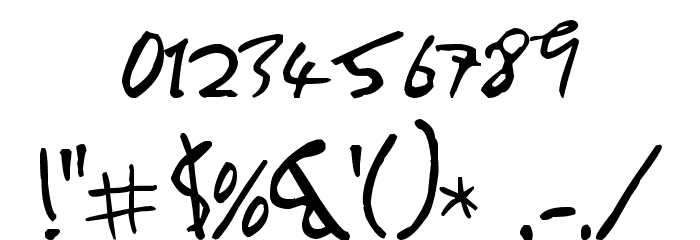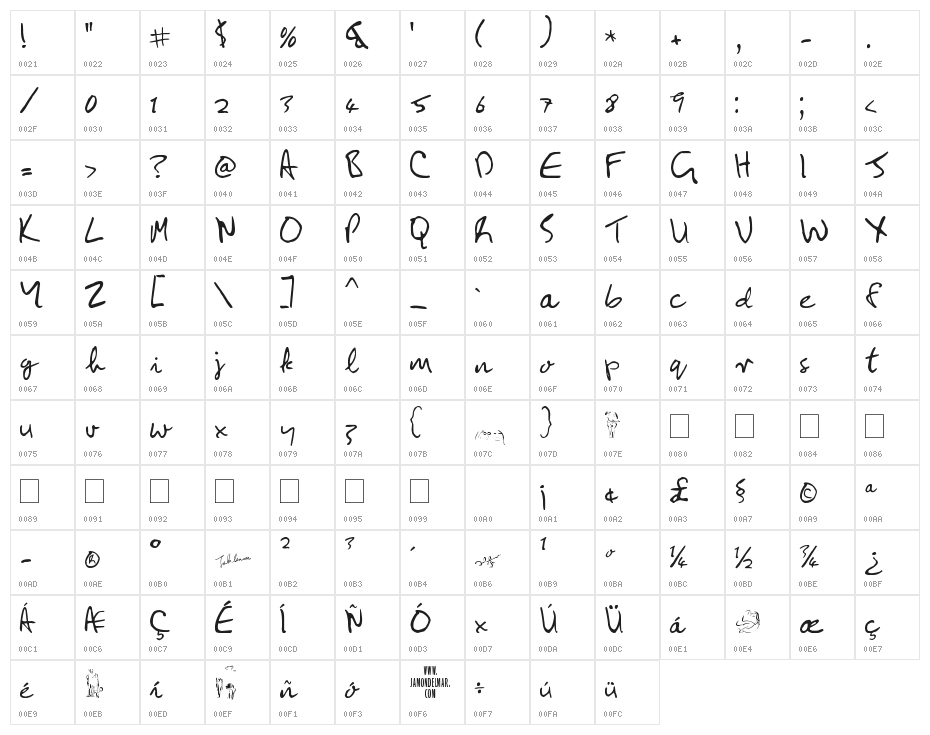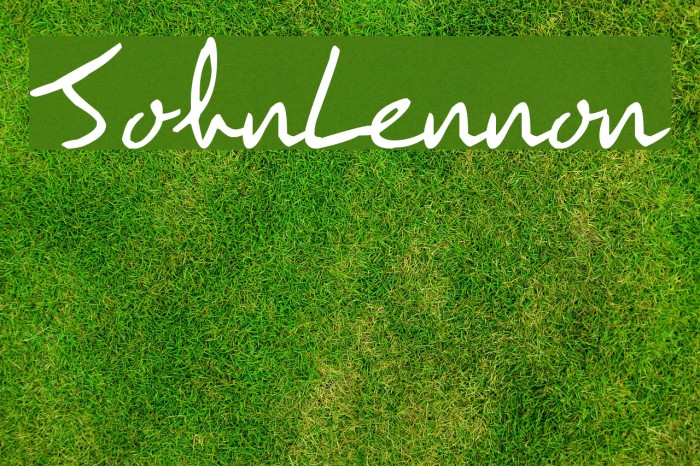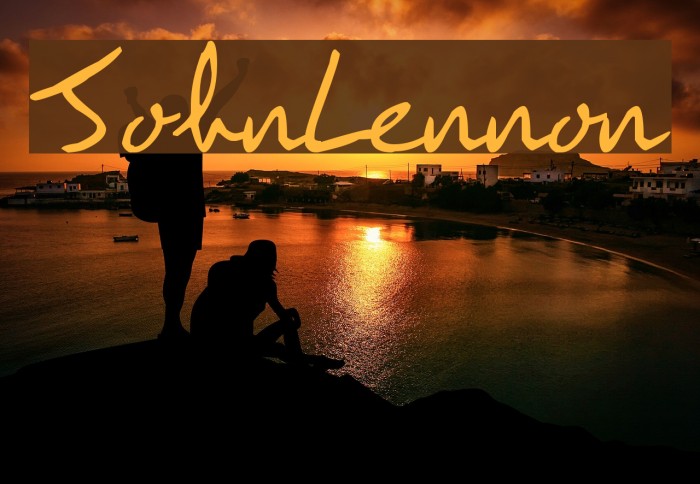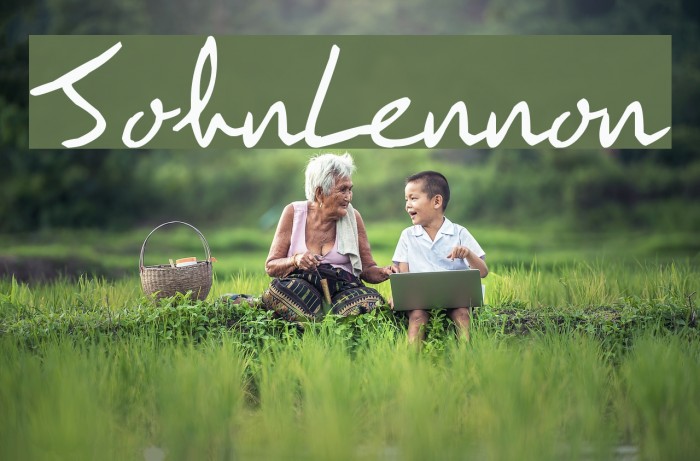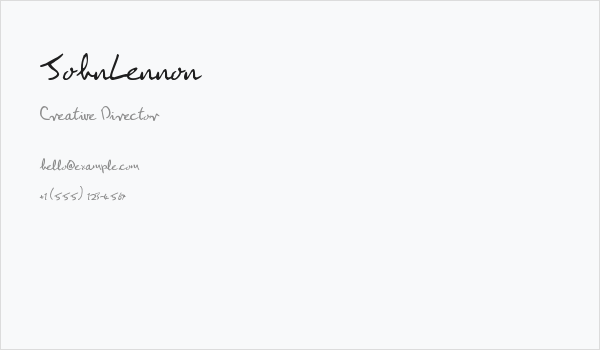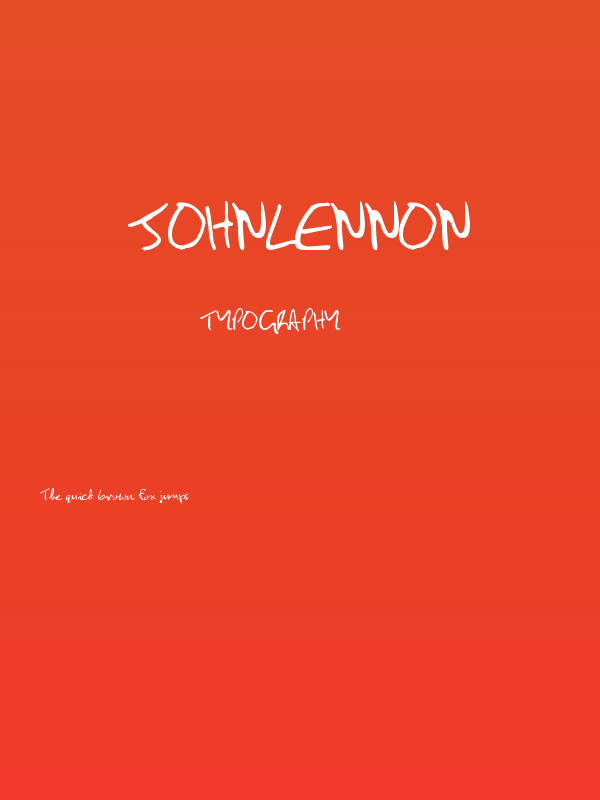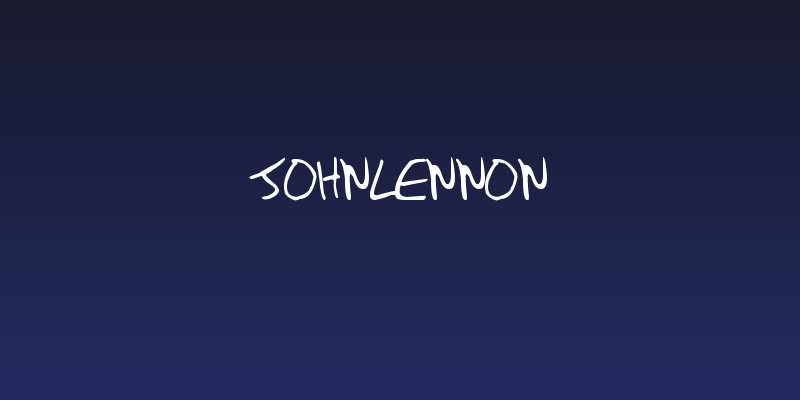
JohnLennon Font
JohnLennon Description
This font features a handwritten style that exudes a casual and personal touch. The letters are slightly slanted, with varying stroke widths that give it a dynamic and lively appearance. The uppercase letters are bold and prominent, while the lowercase letters maintain a consistent flow. The numbers and special characters follow the same handwritten aesthetic, making the font versatile for creative projects. Its organic and freeform nature makes it ideal for designs that require a human touch, such as personal notes, invitations, and artistic projects.
| Overall Style | Casual, Artistic |
| Proposed Projects | Ideal for invitations, personal notes, artistic projects, and creative branding. |